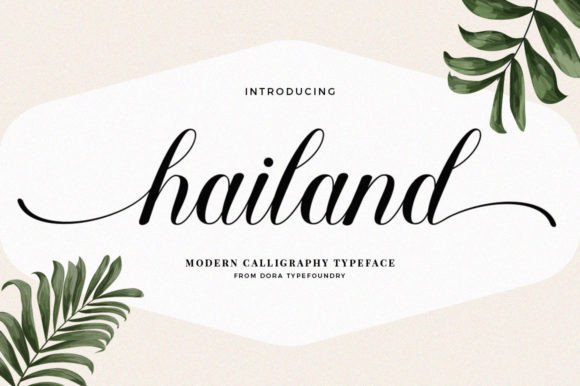
Looking for the perfect font to elevate your designs to the next level? Look no further than Hailand Font, the best font for web design in 2015. Created by the talented designers at Doratypefoundry, this deluxe and exquisite script font is the perfect choice for anyone looking to add a touch of luxury and sophistication to their designs.
With finely crafted and elegant letterforms that feature a flowing calligraphic touch, Hailand Font exudes refinement and class. Whether you're looking to create high-end branding, editorial designs, or any project that requires a touch of opulence and beauty, this font is the perfect choice.
One of the standout features of Hailand Font is its PUA encoding. This means that you can access all of the glyphs and swashes effortlessly, allowing you to create truly unique and eye-catching designs.